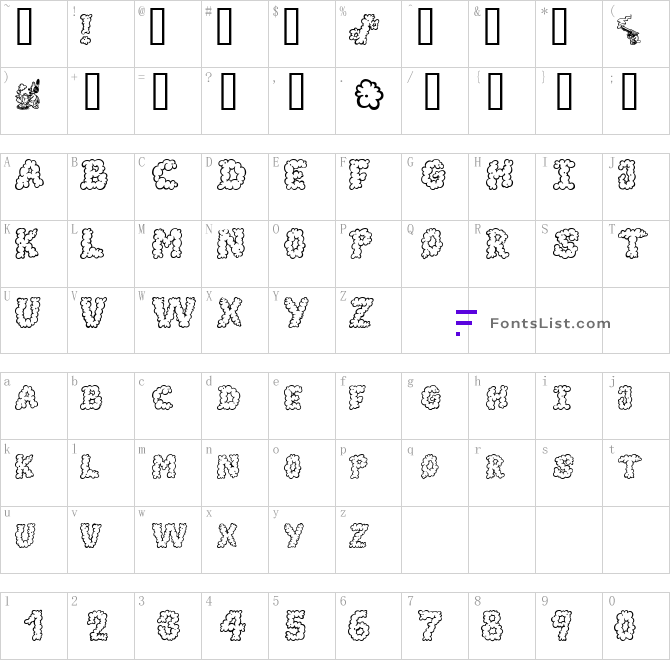
- Font Name:AlphaSmoke
AlphaSmoke.ttf is a very beautiful artistic font, AlphaSmoke.ttf is widely used in the design and printing of various books and pictures,AlphaSmoke.ttf has a strong visual impact,AlphaSmoke.ttf is a commonly used font in newspapers, magazines and books, and is used in posters, e-commerce Poster design, store design, logo design, font design and other fields.AlphaSmoke.